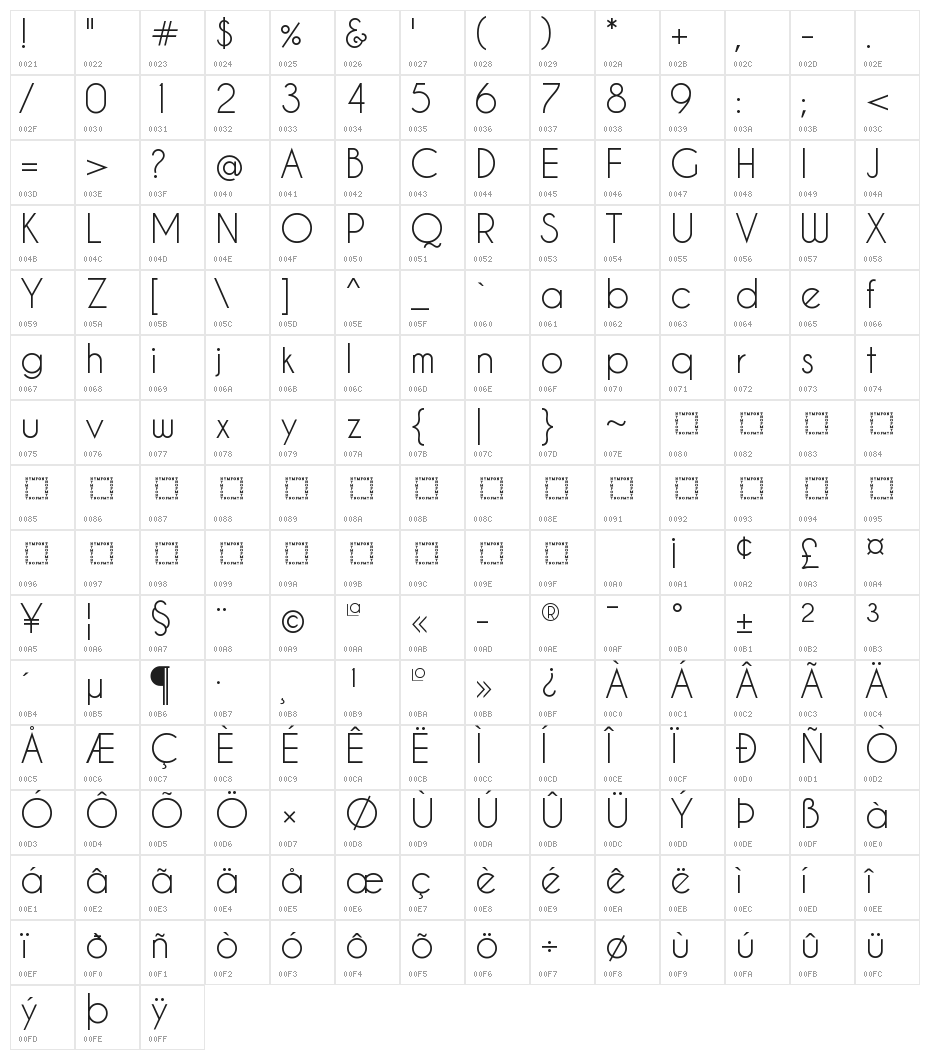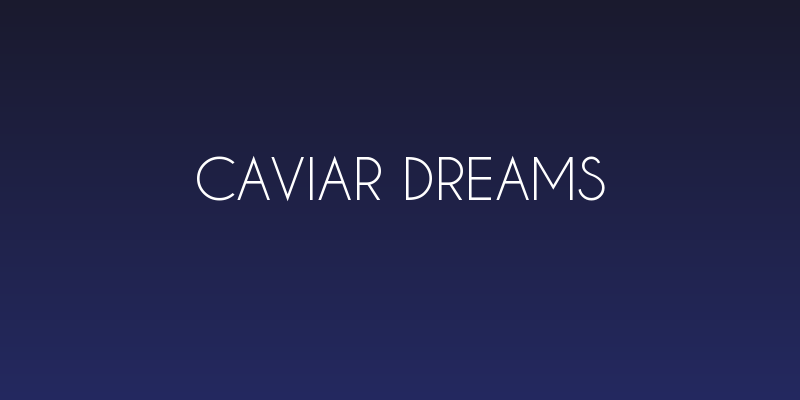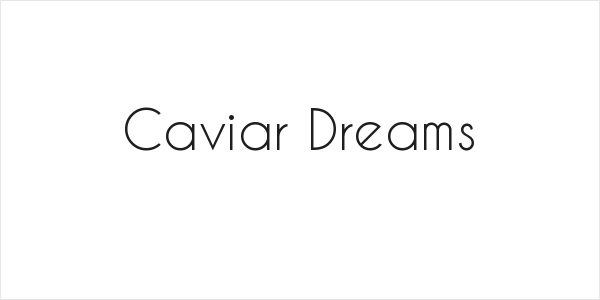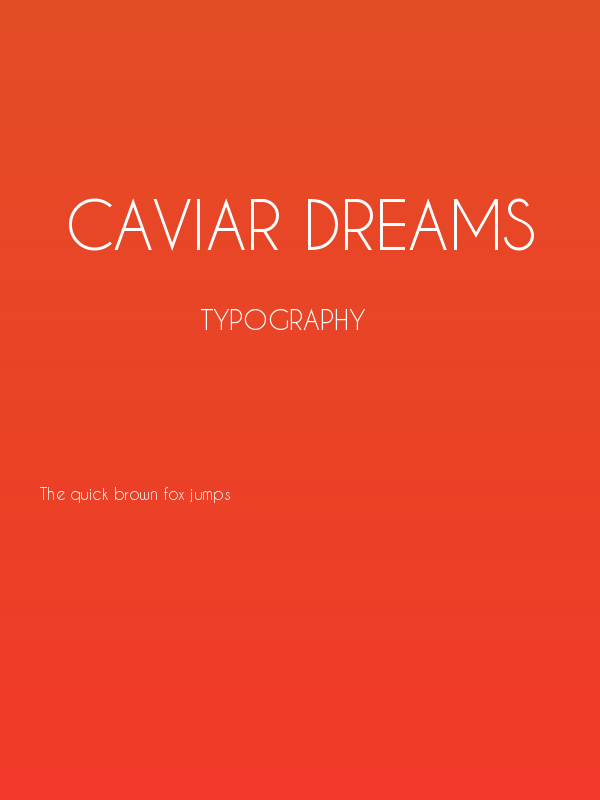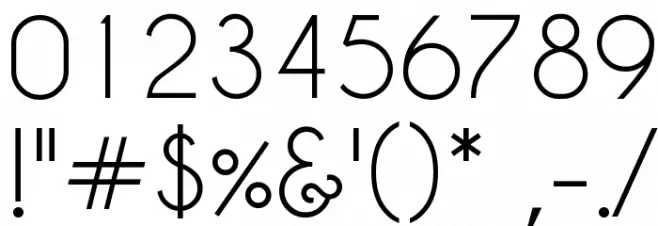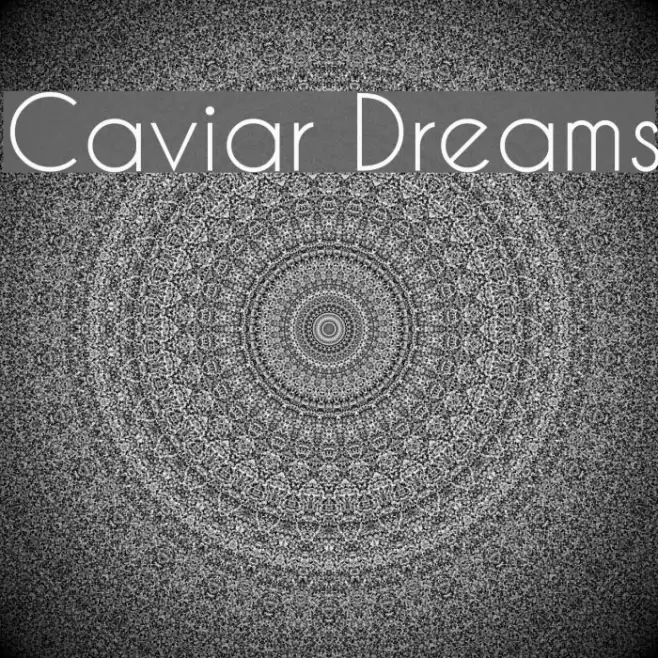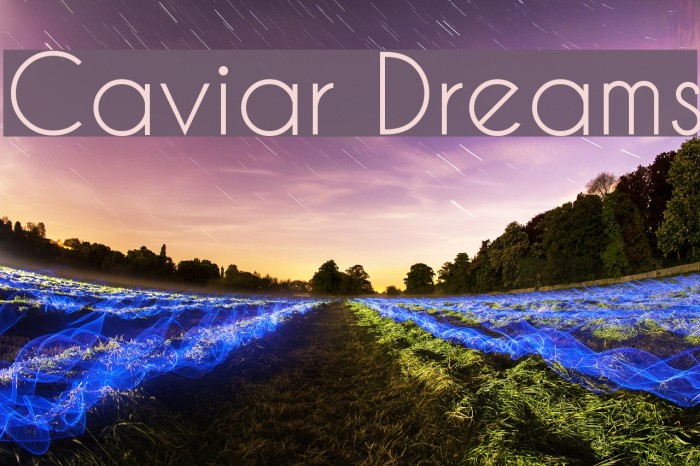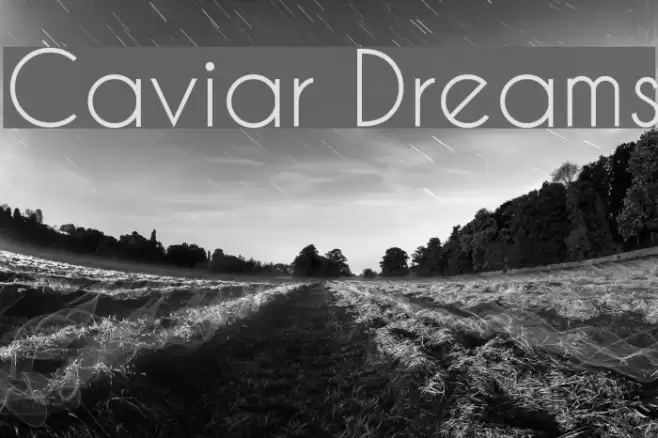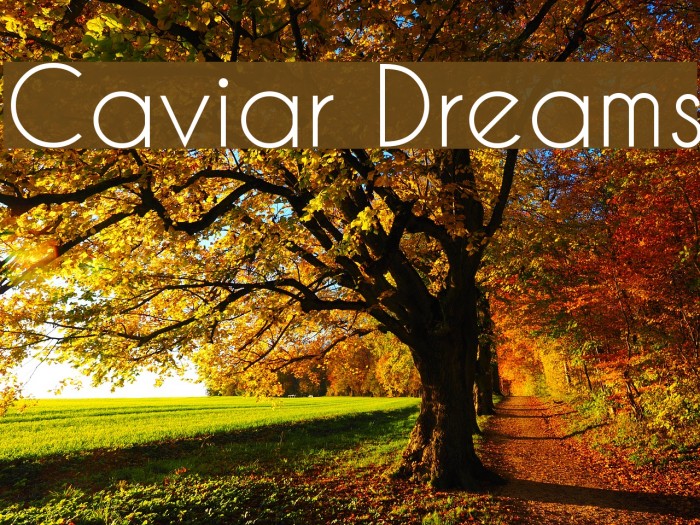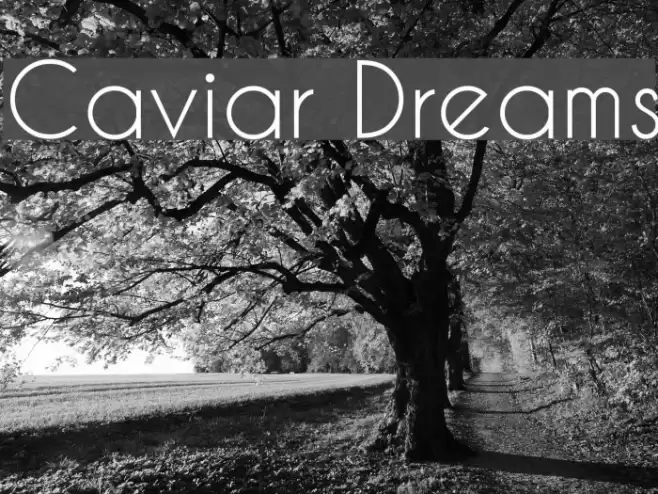
Caviar Dreams Font
Caviar Dreams Description
This font features a clean and modern sans-serif style with a geometric structure. The characters are evenly spaced, providing a balanced and harmonious appearance. The uppercase letters are tall and elegant, while the lowercase letters maintain a consistent height, enhancing readability. The numerals are clear and distinct, making them suitable for various applications. Special characters are well-defined, adding versatility to the font's usage. The overall design is sleek and contemporary, making it ideal for digital and print media.
| Use Case | Headlines, Body text, Logos |
| Proposed Projects | Ideal for branding, web design, advertising, and editorial layouts due to its modern and clean aesthetic. |